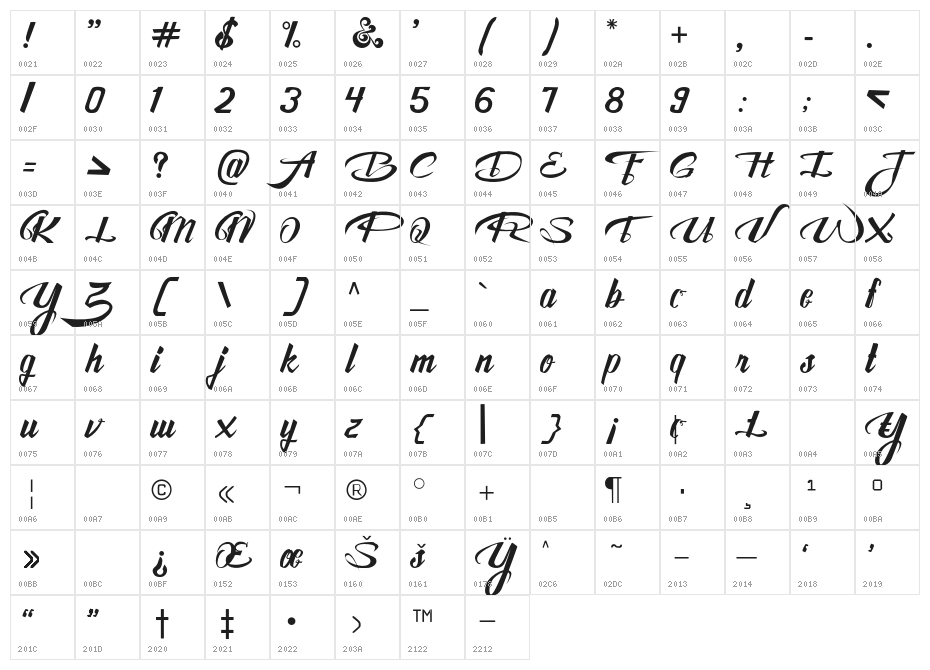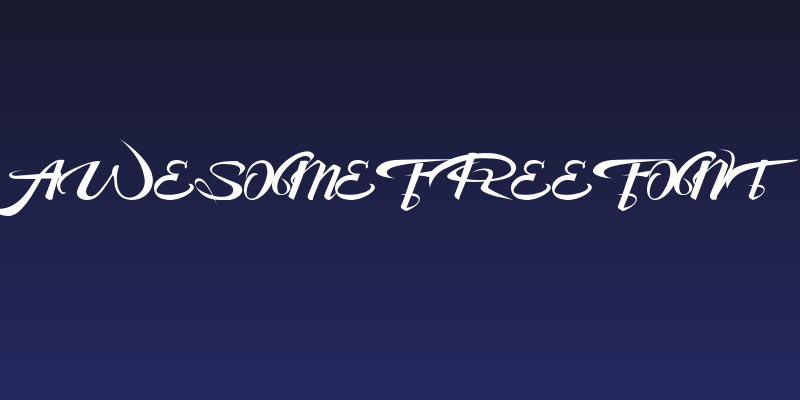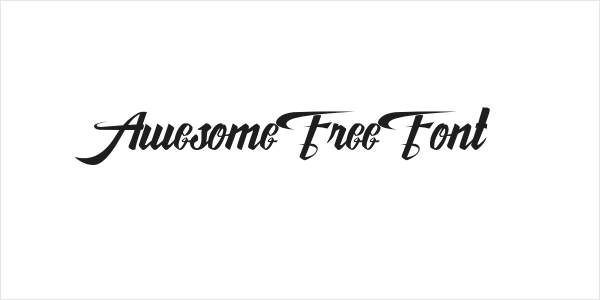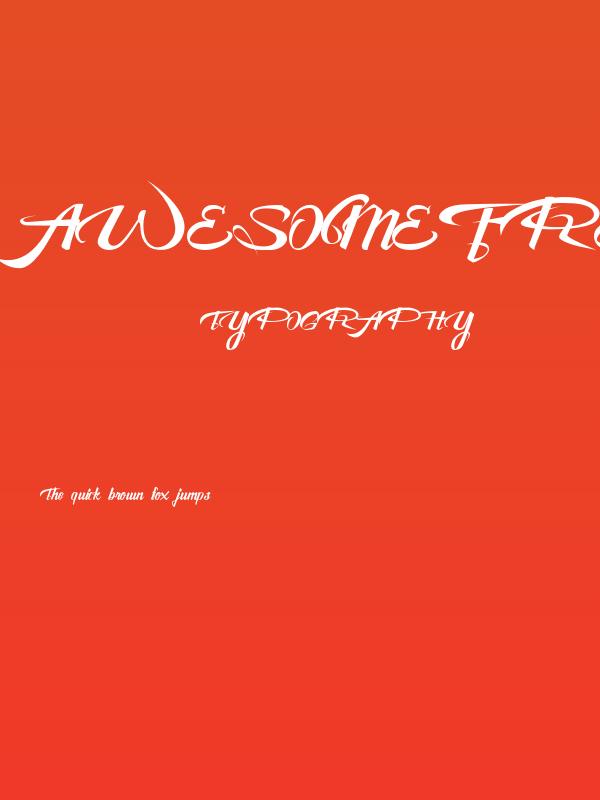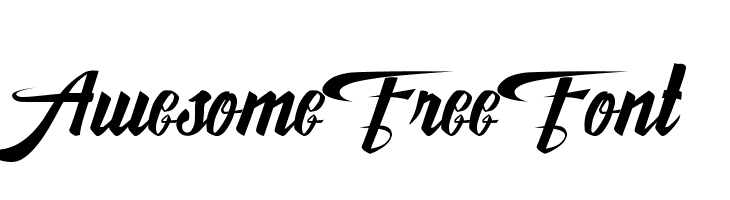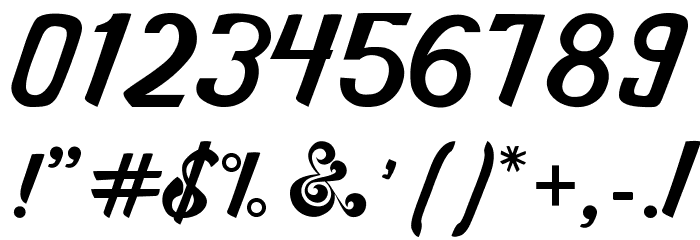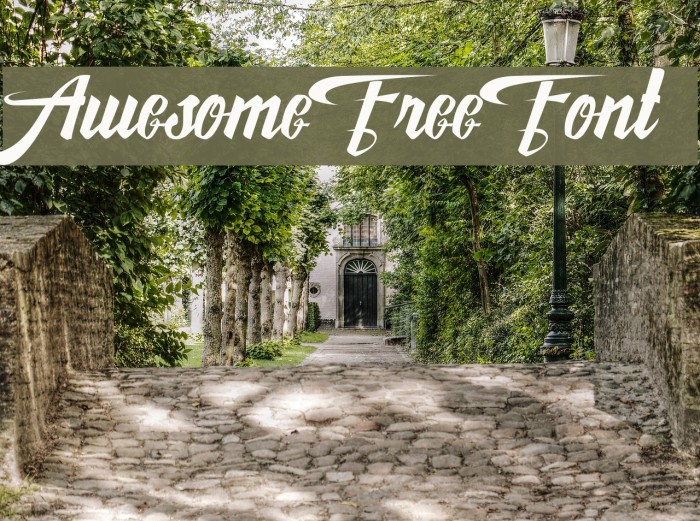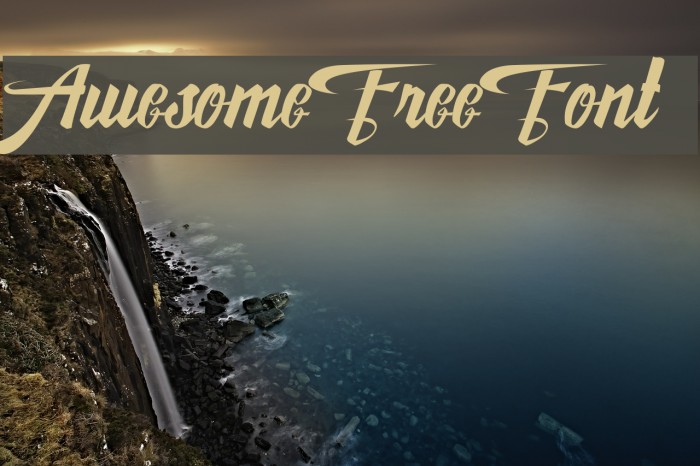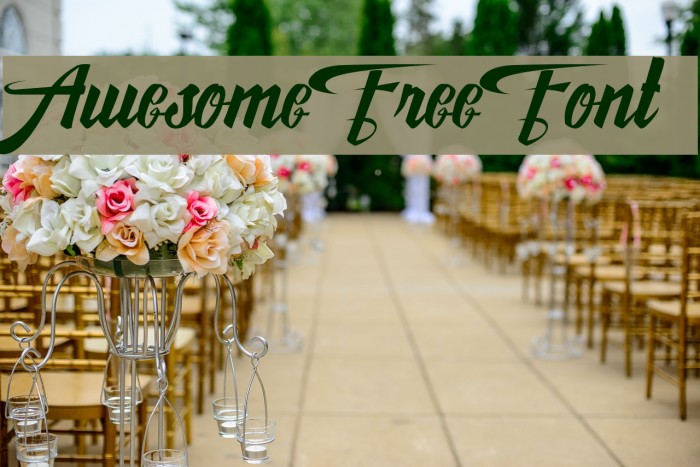
AwesomeFreeFont Font
AwesomeFreeFont Description
This font features a dynamic and elegant script style with a modern twist. The uppercase letters are characterized by flowing, cursive strokes that give a sense of movement and sophistication. The lowercase letters maintain a similar script style but are more compact and bold, providing a strong visual impact. The numerals are clear and bold, ensuring readability while maintaining the overall aesthetic. Special characters are designed with the same attention to detail, fitting seamlessly into the font's cohesive style. This font is perfect for projects that require a touch of elegance and flair, such as invitations, branding, and editorial design.
Fonts by Ferry Hadriyan
| Use Case | Logos, Headlines, Invitations |
| Proposed Projects | Ideal for wedding invitations, luxury branding, editorial design, and elegant packaging. |